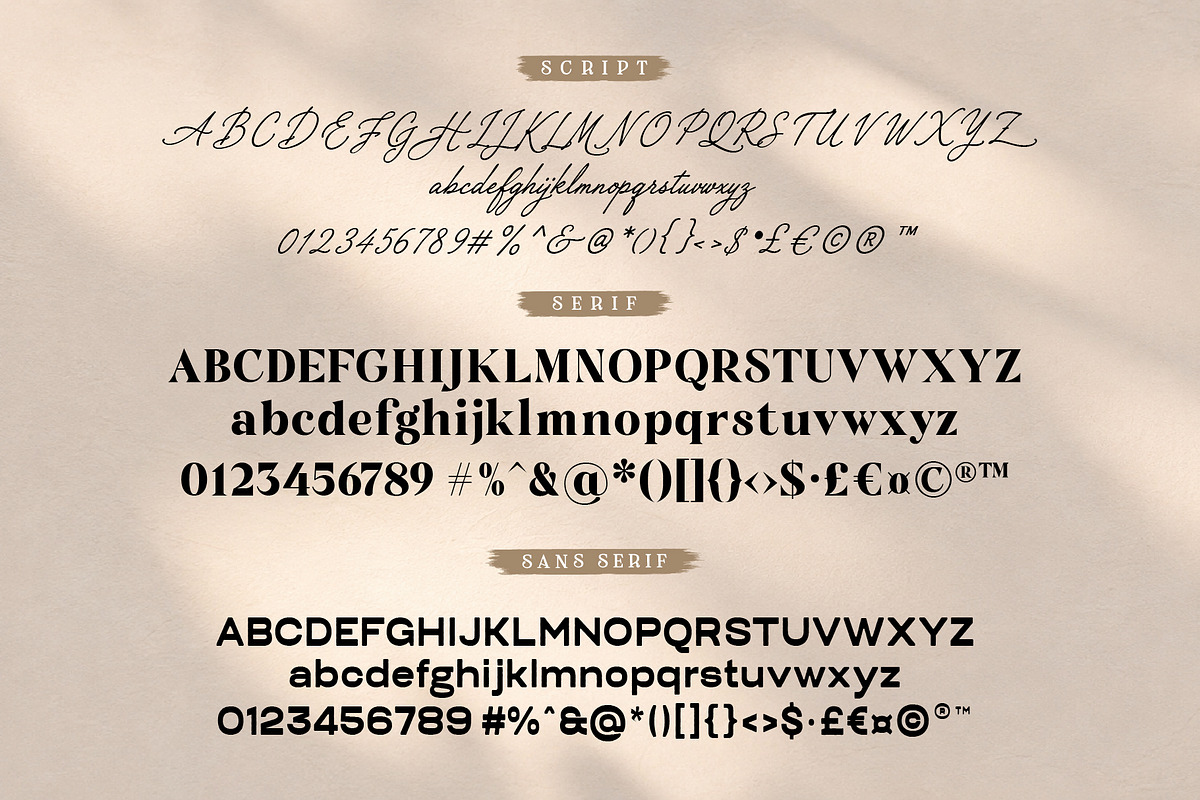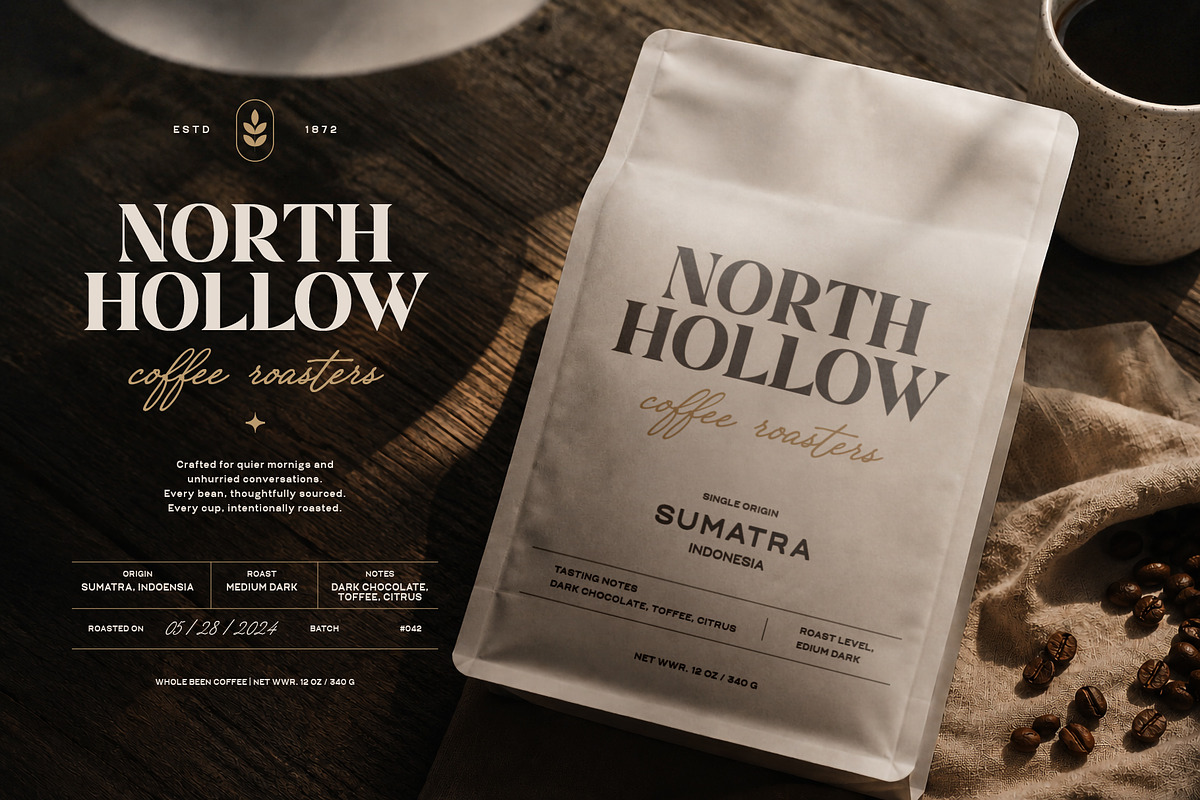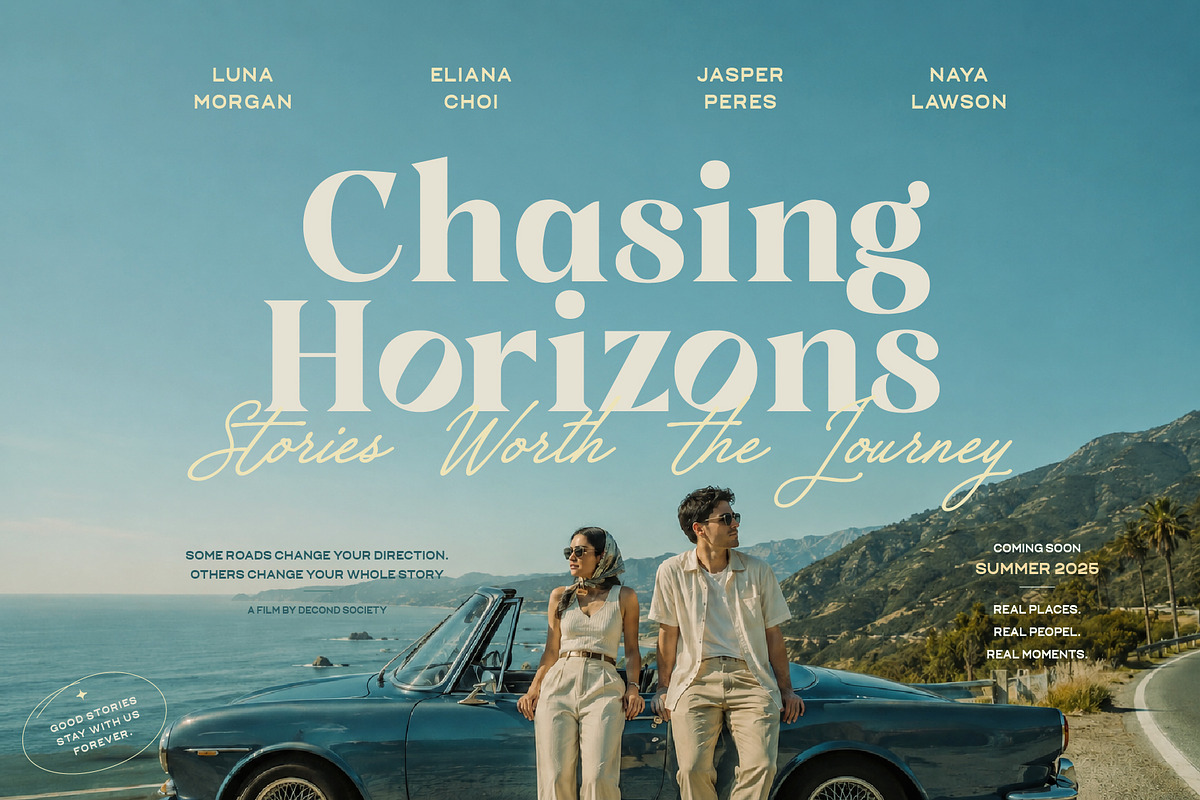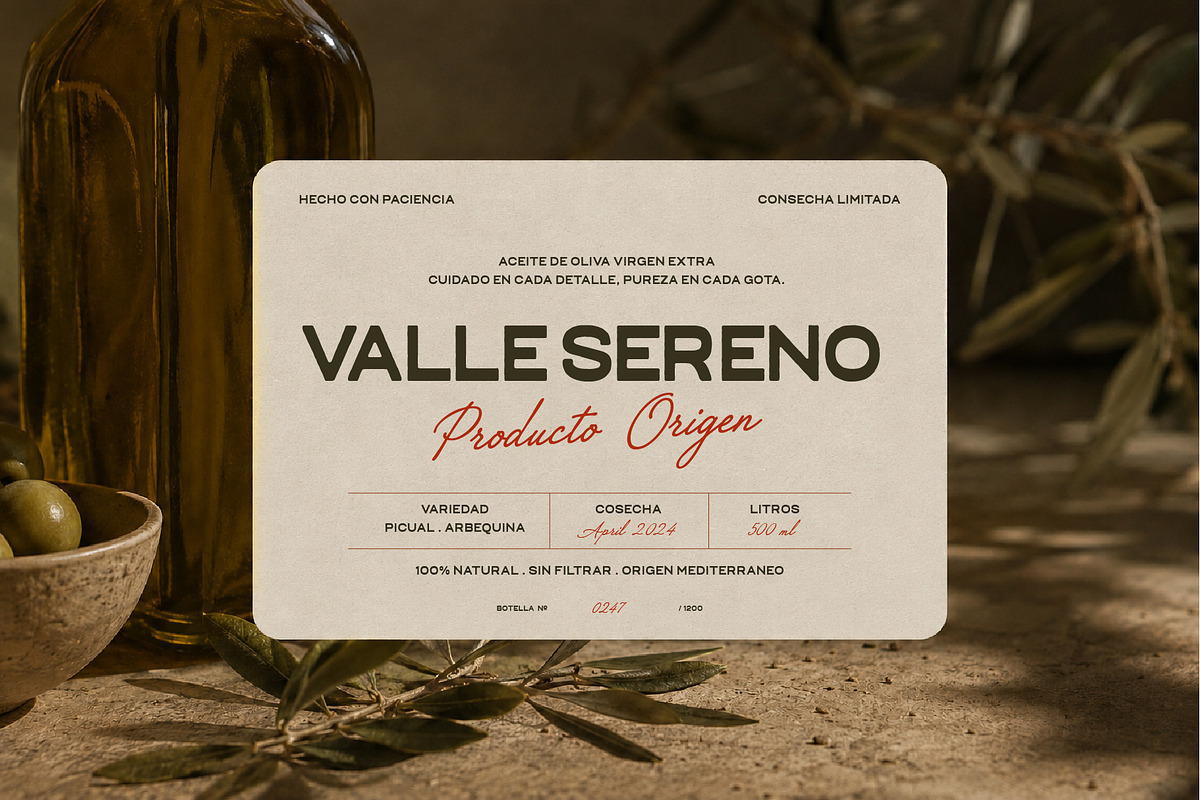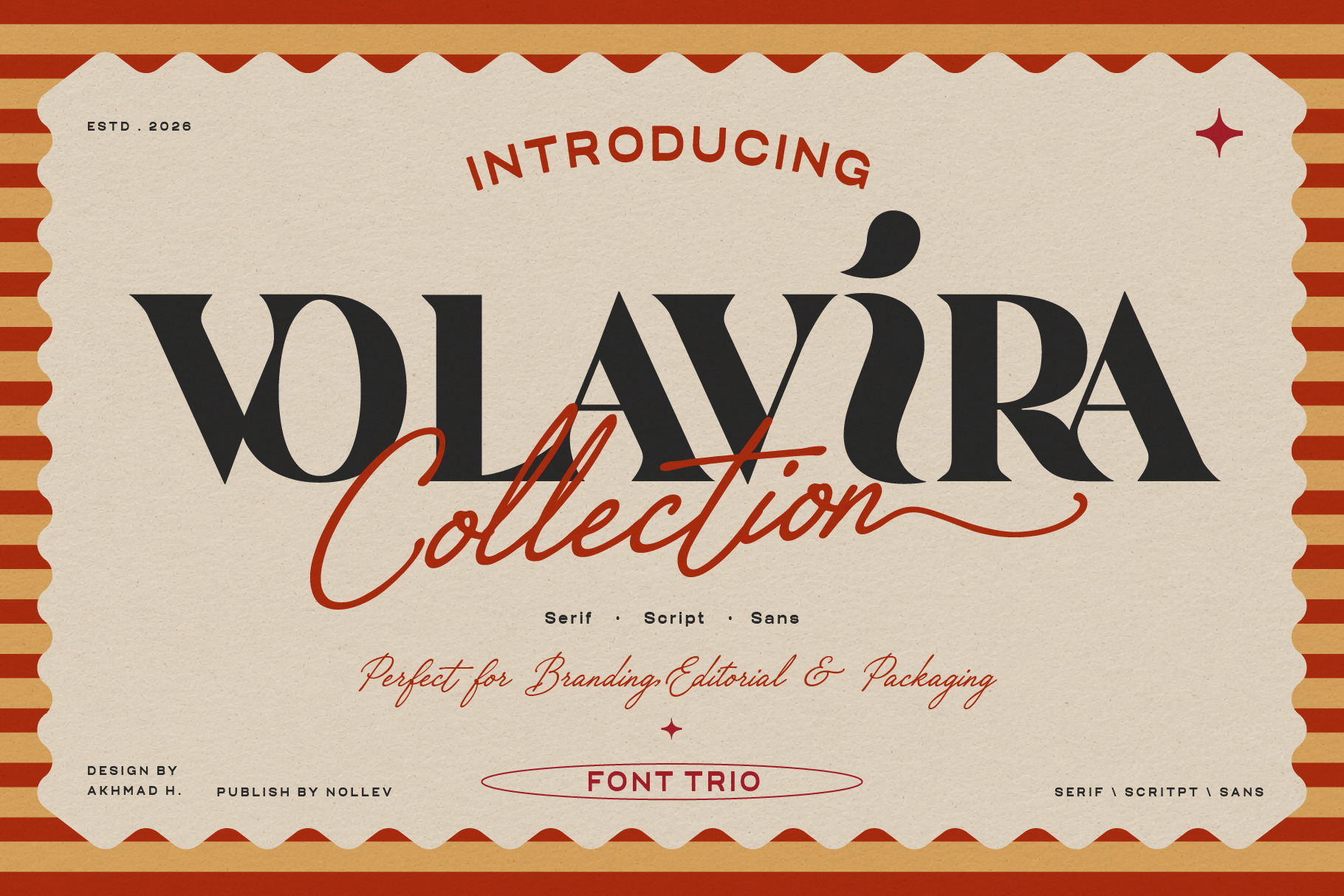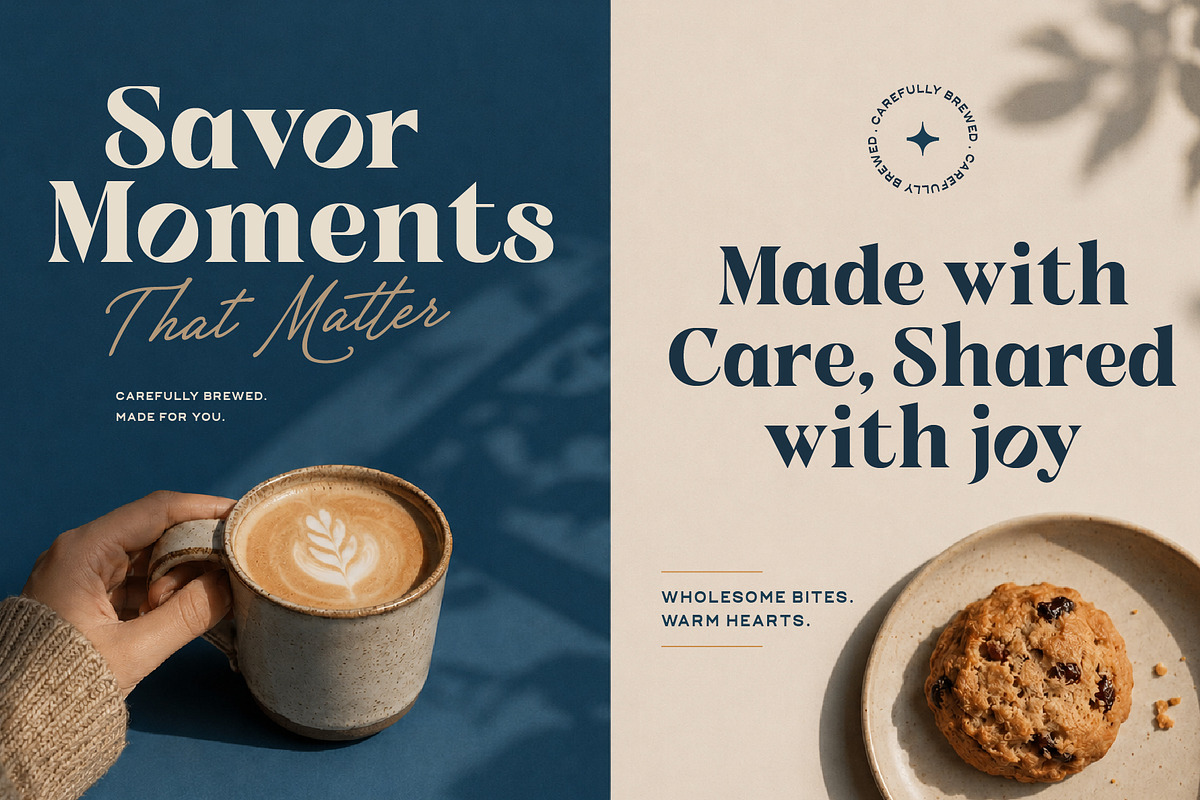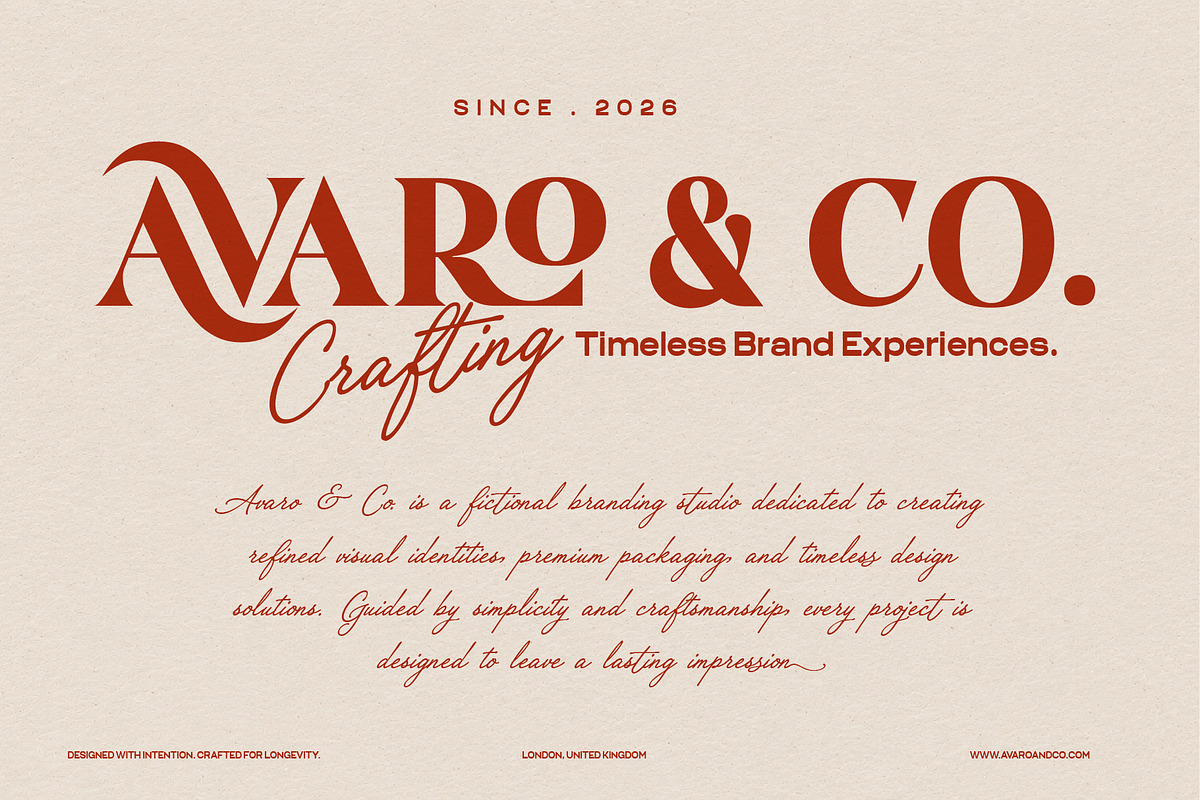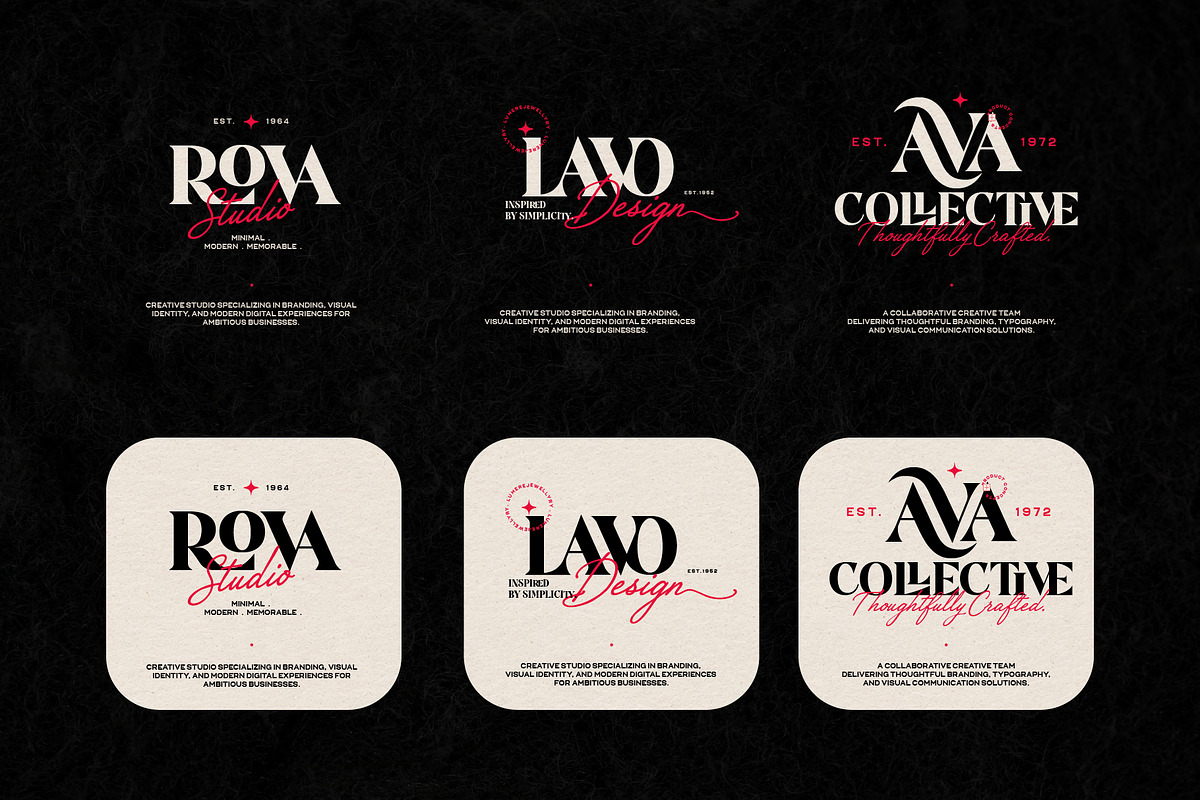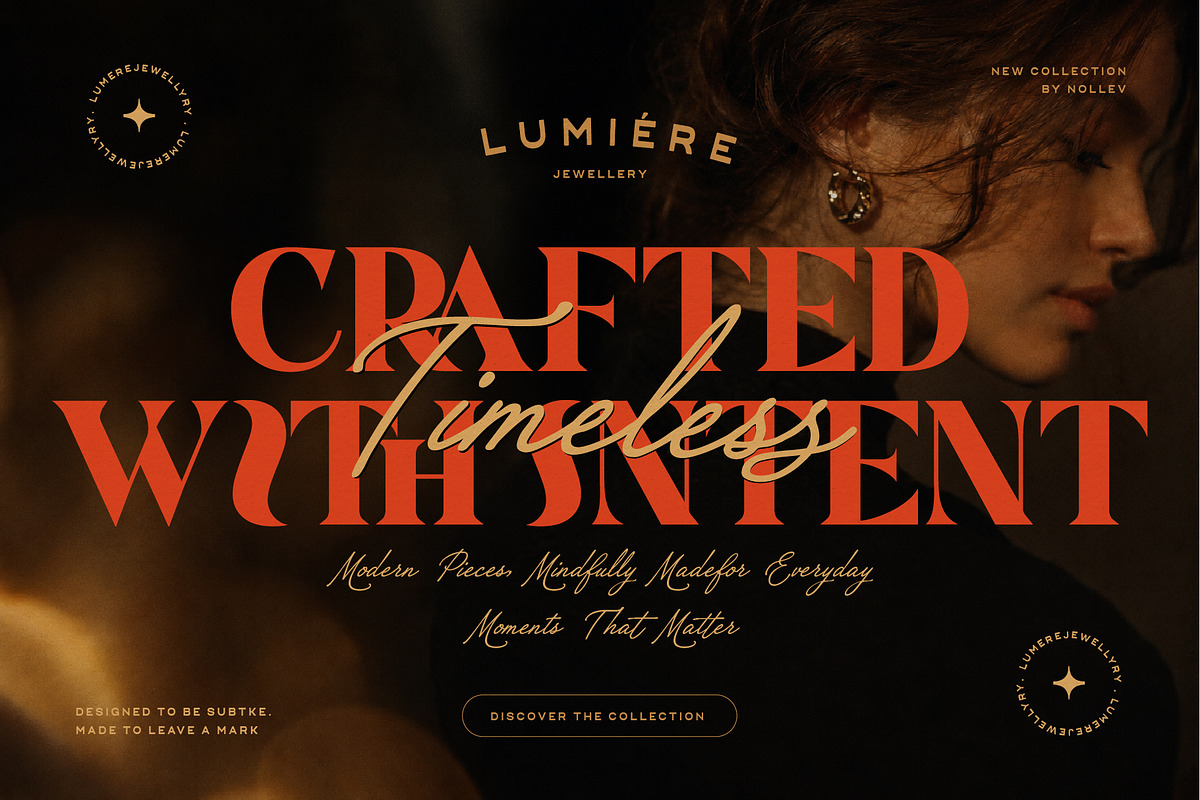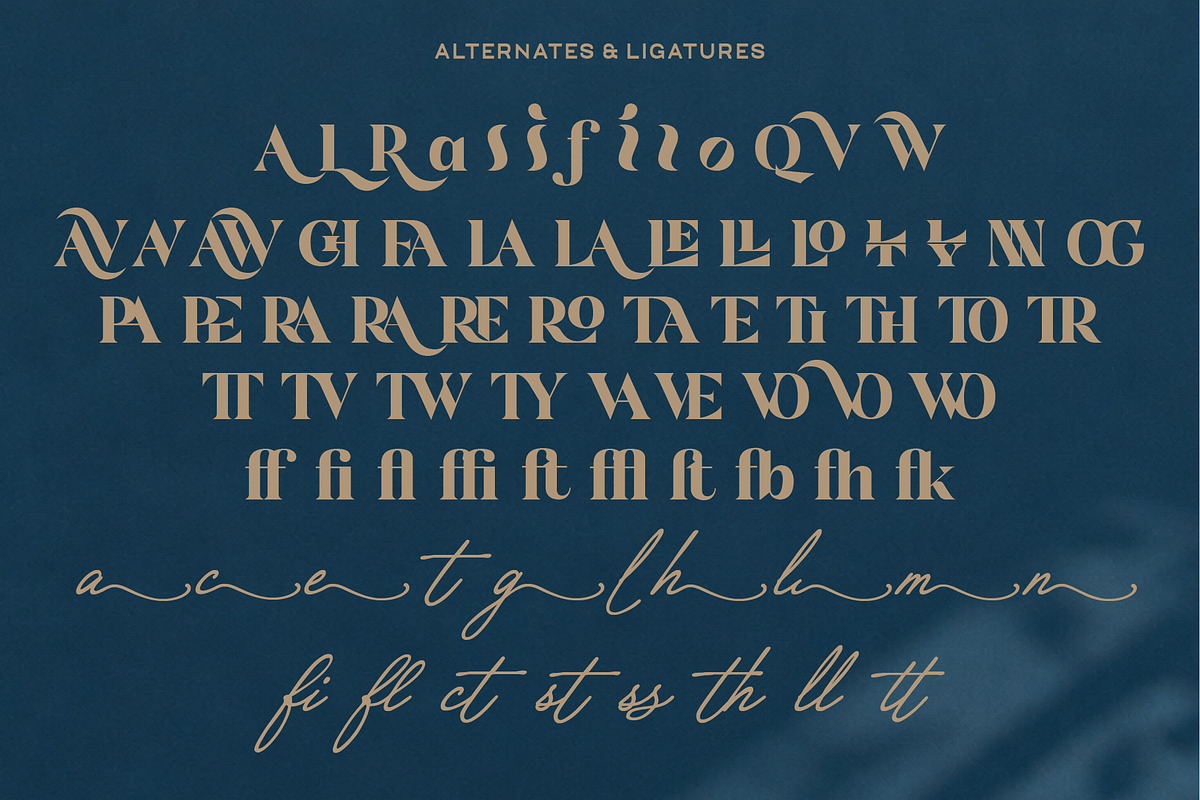
Volavira Font Collection - Font Trio
Volavira Collection — a premium font trio that blends artisan warmth with modern elegance. Volavira Serif stands as a bold, expressive display serif, rich with abundant ligatures and alternate characters; Volavira Script flows with a textured, personality-filled signature style; while Volavira Sans stays clean and rounded to keep every application readable. Together, the three create a visual language that feels curated, soft, yet timeless.
Whether you're designing logos, labels, editorial layouts, invitations, or brand identities, this trio gives you the contrast and character to make every project feel intentional and high-end.
Volavira Script: organic, signature-style letterforms full of natural texture and alternate letters for a more personal handwritten feel
Volavira Serif: a strong display weight with refined details, loaded with abundant ligatures and alternate characters
Volavira Sans: a clean, rounded sans serif with full Cyrillic support for multilingual projects
Uppercase, lowercase, numerals, punctuation & special characters